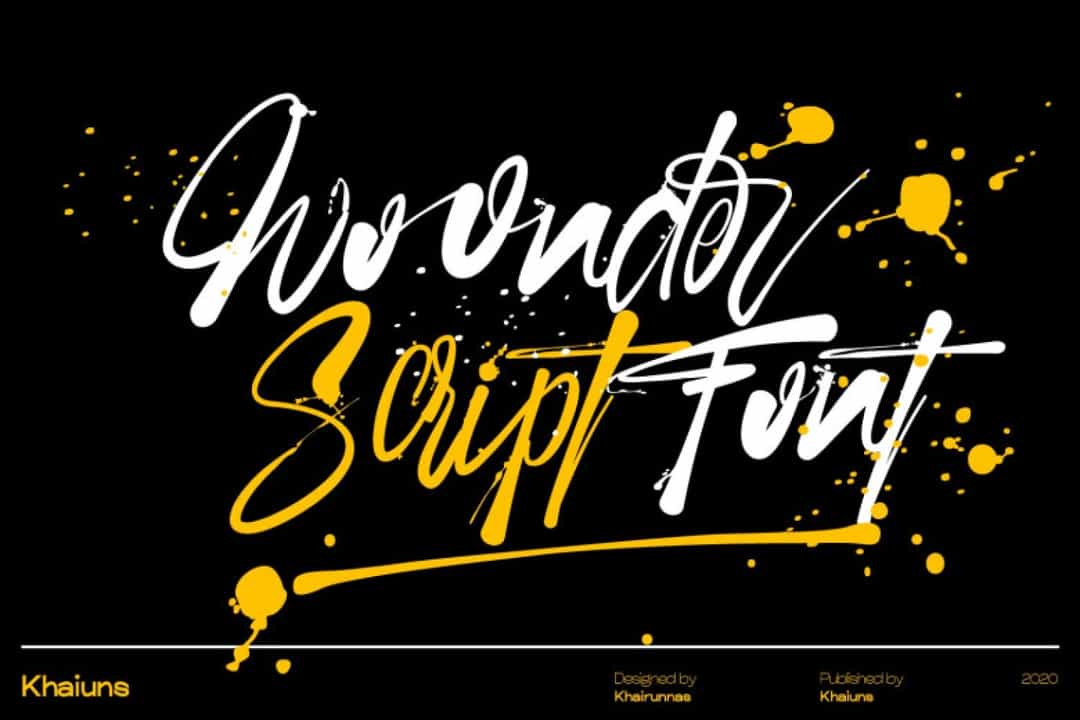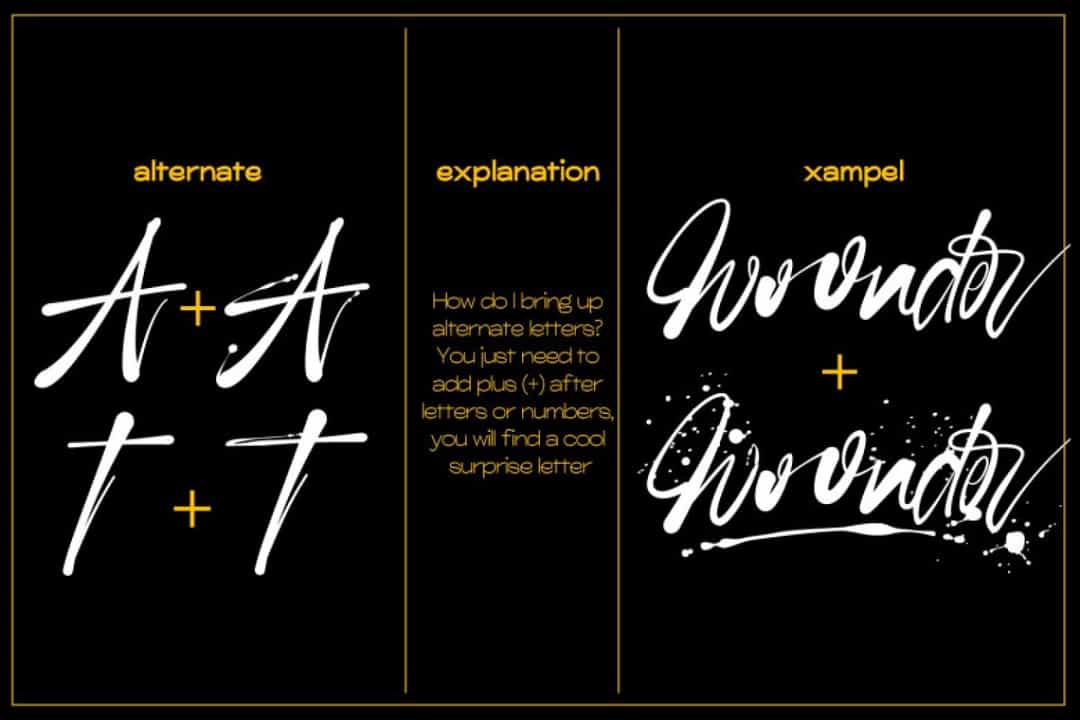
Discover Woonder Font, part of the Brush Script collection—a versatile and unique font perfect for adding a personal touch to your projects. Download it for free and enjoy crafting designs with style, from invitations to social media posts. This font is available exclusively for personal use, giving you the freedom to create without limits. Unlock your creativity with Woonder Font today!
Woonder Brush Font was designed by a creative genius! The bold and fluid font comes with two letter sets for personalization with two sets of letters and Swashes and textures. On top of that, there are the Woonder Script font with its additional (+) letters that make it easy to produce elegant letters!